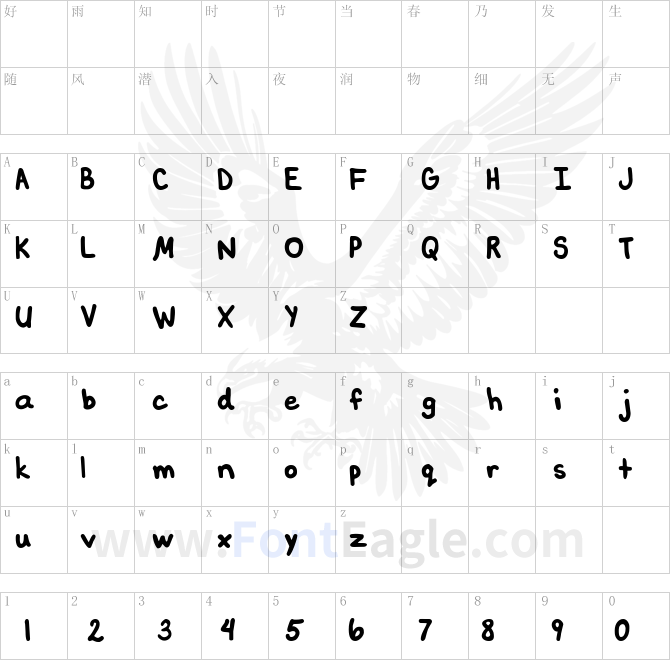
SaraRachelle-Hand is a great font, widely used in graphic design, single-page menu design, poster design and other fields, and is deeply loved by designers.SaraRachelle-Hand download.